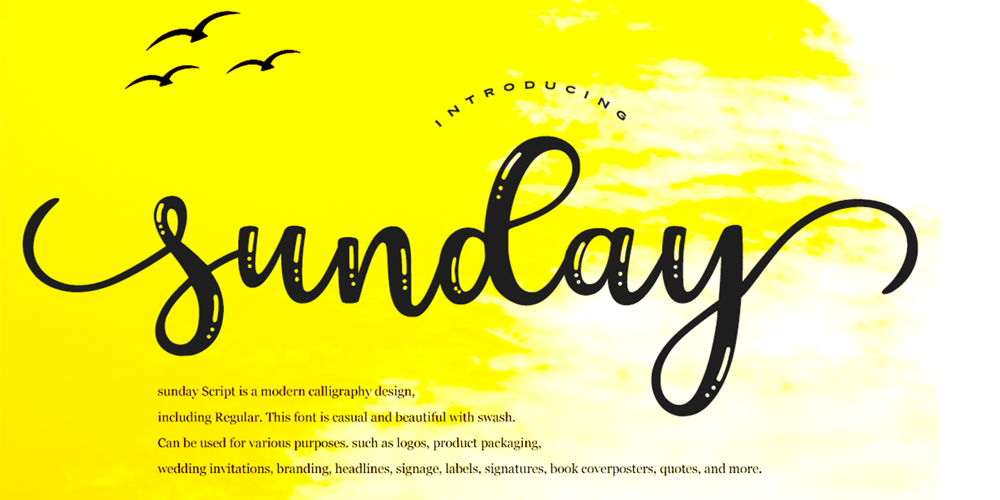
Sunday
Sunday font
Sunday Font Family was designed by Muhammad Zaini and published by Cocodesign. Sunday contains 1 styles and family package options. sunday Script is a modern calligraphy design, including Regular. This font is casual and beautiful with swash. Can be used for various purposes. such as logos, product packaging, wedding invitations, branding, headlines, signage, labels, signatures, book covers, posters, quotes, and more.